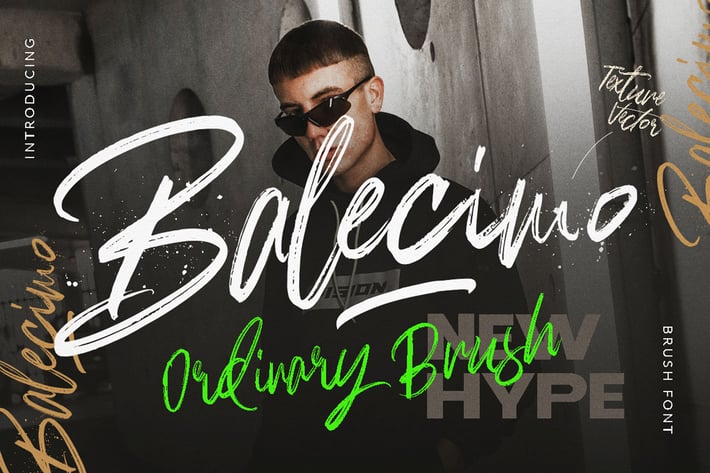
Balecimo - Ordinary Brush Font Logotype
Introducing Balecimo handwriting brush with some combination of style Street and LifeStyle. Ready used with awesome character!
Basic Latin A-Z and a-z
Symbols
Stylistic Set